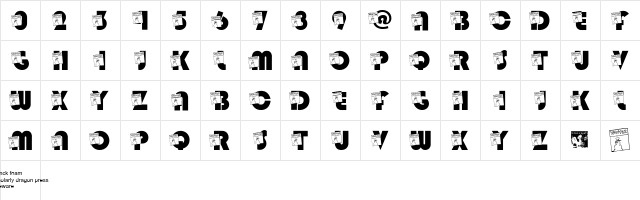
pf_wanted_winter Regular
| Designer | David E. Howerton |
pf_wanted_winter is a composed and adaptable typeface that performs quietly and consistently across a wide range of design contexts.